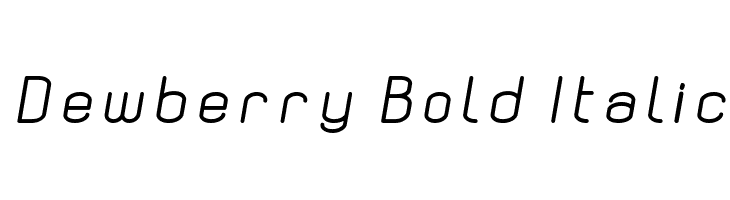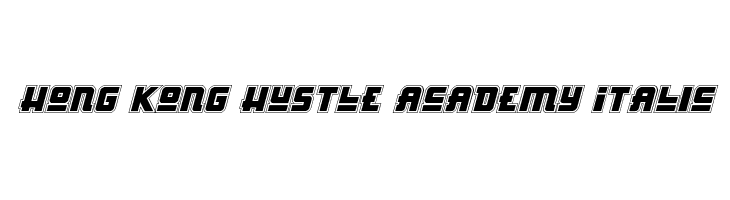
( Ryan Williamson )
A modern, geometric font with a clean, monospaced appearance.
A bold, geometric font with sharp angles and a futuristic style.
Playful stick-figure font with expressive, hand-drawn characters.
( Fonts by Khurasan )
A bold, playful font with a hand-drawn, dynamic style.
( Fonts by Display Studio )
Casual handwritten script font.
( Here Be Monsters - monsterswithin.com )
A modern collection of decorative symbols and icons with a clean, minimalistic style.
( Måns Grebäck - www.mansgreback.com )
A bold, graffiti-inspired font with dynamic, flowing lines and urban energy.